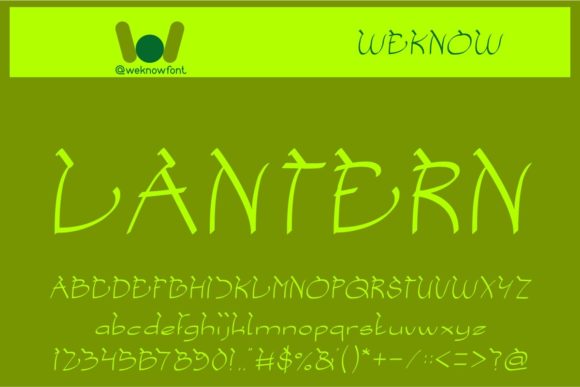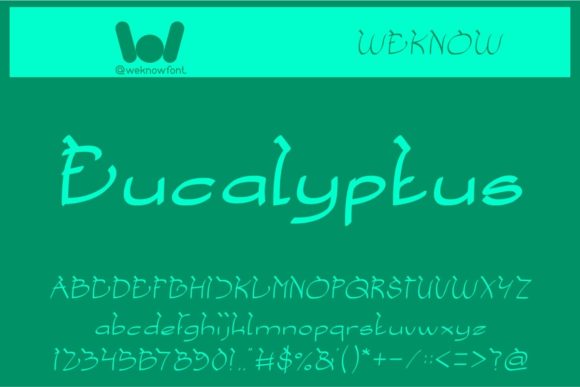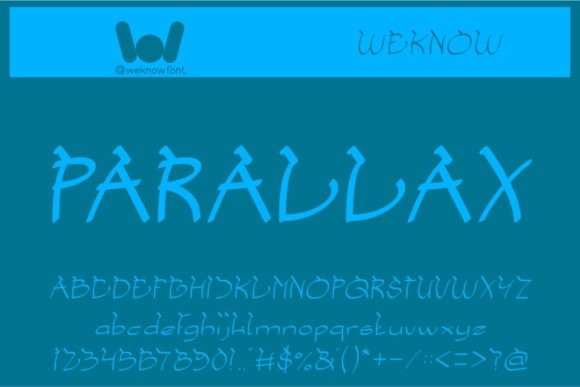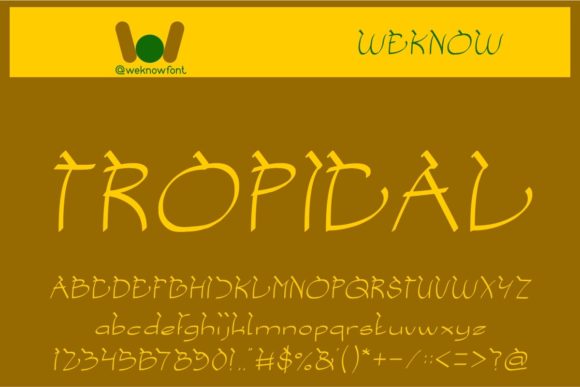
Unleash Your Creativity with Cobra and Coconut Tree Font
Have you ever stared at a blank canvas, feeling the pressure to create something truly remarkable? That’s where the magic happens, and for many designers, the right font can be the spark that sets their imagination ablaze. If you’re looking for a font that’s as versatile as it is stylish, you’re in luck.
Enter Cobra and Coconut Tree Font, a modern and quirky handwritten font that’s sure to elevate your designs to new heights. Whether you’re working on a branding project, a social media campaign, or a simple logo, this font is the perfect addition to your toolkit. Its unique charm and effortless cool make it a valuable asset for designers looking to add a touch of personality to their work.
Cobra and Coconut Tree Font Key Features
- Font Family: Cobra and Coconut Tree Font is a unique, hand-drawn font that combines elements of a cobra and a coconut tree in its design.
- Font Size: The font is designed to be highly legible at various font sizes, with a minimum recommended size of 12 points.
- Resolution: The font is optimized for high-resolution displays and can be used at resolutions up to 300 DPI (dots per inch).
- Unique Characteristics: The font features intricate, hand-drawn details and unique characters that evoke the exotic, tropical feel of a cobra and a coconut tree.
- Font Weight: The font comes in two weights: Regular and Bold, allowing users to choose the level of emphasis they need for their text.
Cobra and Coconut Tree Font Review
I recently had the chance to work with the Cobra and Coconut Tree Font, and I have mixed feelings about it. Here’s my honest review.
- Unique blend of exotic and bold elements: The Cobra and Coconut Tree Font successfully combines two distinct styles, creating a visually striking design.
- Great for tropical or adventure-themed projects: This font is perfect for projects that require a sense of excitement and adventure, such as travel brochures or outdoor apparel designs.
- Highly customizable: The font offers a range of options for customization, allowing designers to tailor it to their specific project needs.
- May not be suitable for corporate or formal projects: The font’s bold and exotic nature may not be suitable for projects that require a more conservative or traditional look.
- Limited character set: The font may not include all the characters you need, which could lead to workarounds or additional font usage.
- May be difficult to read in smaller sizes: The font’s unique style can make it challenging to read at smaller font sizes, which may require additional design considerations.
Overall, I think the Cobra and Coconut Tree Font is a great choice for projects that require a bold and adventurous look. However, it may not be the best fit for more traditional or formal projects. With some careful design considerations, this font can be a great addition to any designer’s toolkit.
Use the Cobra and Coconut Tree font to add a tropical touch to your designs.
Pair it with bright colors and fun graphics for a playful vibe.
Use the Cobra and Coconut Tree font for:
Beach-themed designs, such as party invitations and social media graphics.
Tropical-themed designs, such as restaurant menus and product packaging.
Summer-themed designs, such as calendars and newsletters.